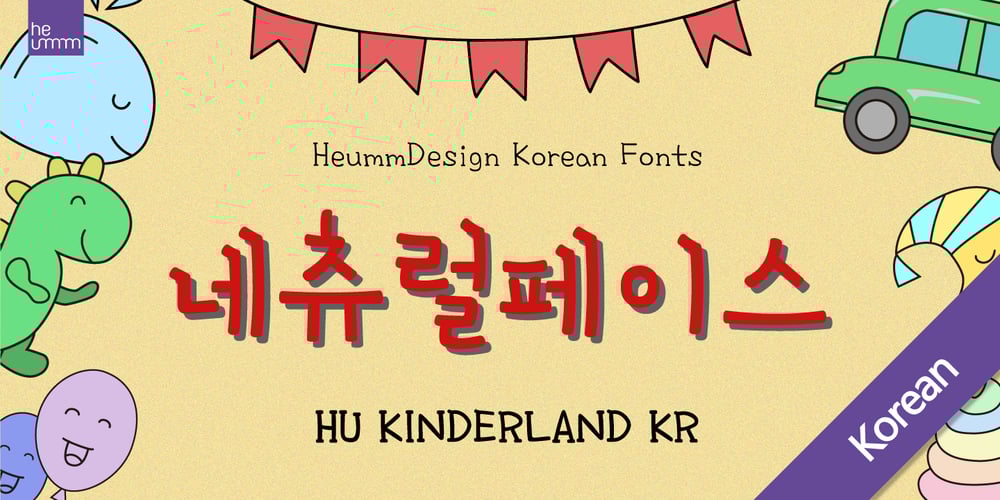
HU Kinderland KR Font Family was designed by Wonjoon Huh and published by Heummdesign. HU Kinderland KR contains 4 styles and family package options. It is a neat and friendly handwriting typeface with unadorned innocence. The tight handwriting gives off a cute atmosphere as if it were written by a young person.In the existing KINDERLAND, only Regular and Bold were introduced, but the Korean version of the font introduces two white weights.White weight can give a unique feel by saving only the border and not filling the typeface.This font contains Korean.